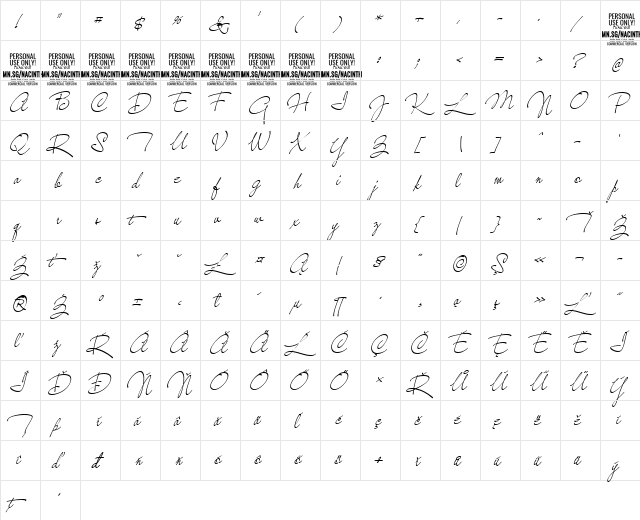
Nacinth PERSONAL USE Thin
| Foundry | Mans Greback AB |
| Designer | Mans Greback |
Design Context for Nacinth PERSONAL USE Typeface
Nacinth PERSONAL USE is a composed and adaptable typeface that performs quietly and consistently across a wide range of design contexts. Its slender proportions lend an understated elegance to any composition.